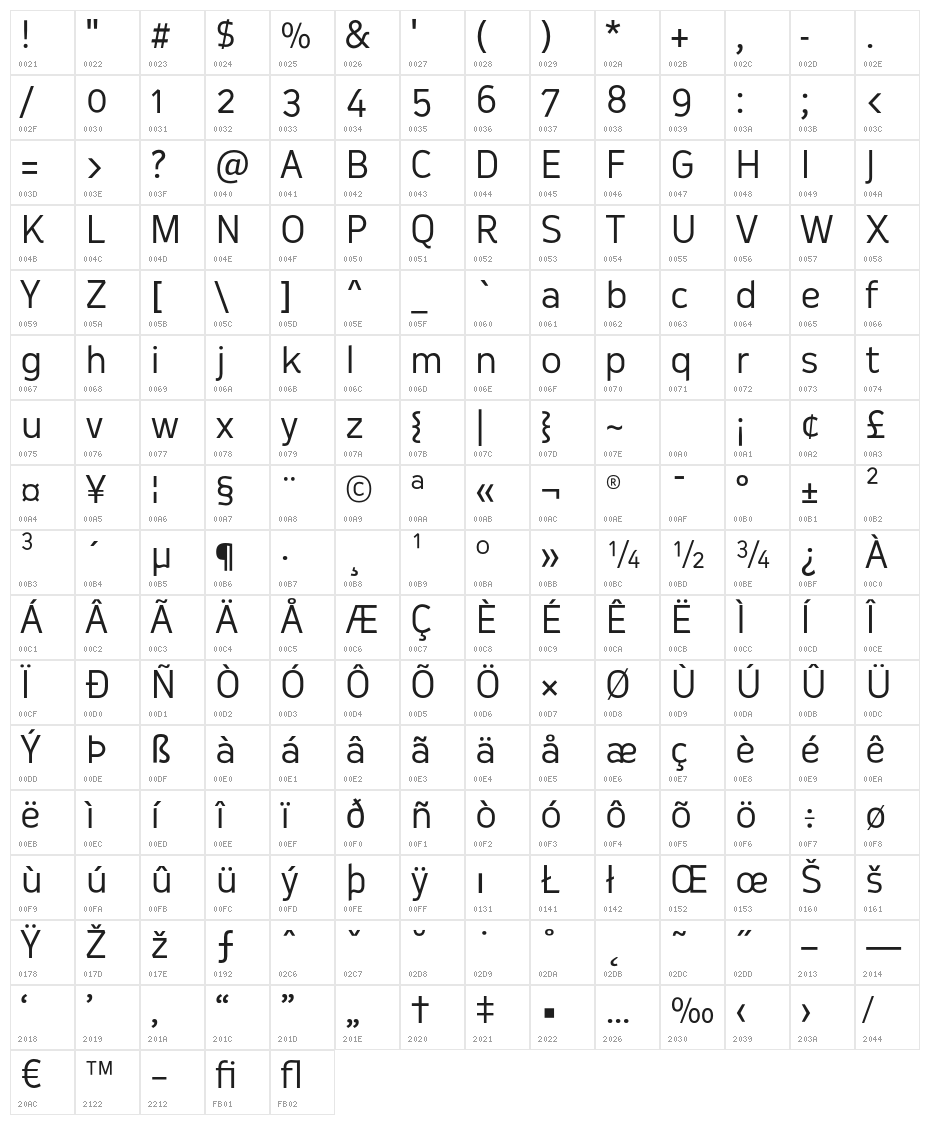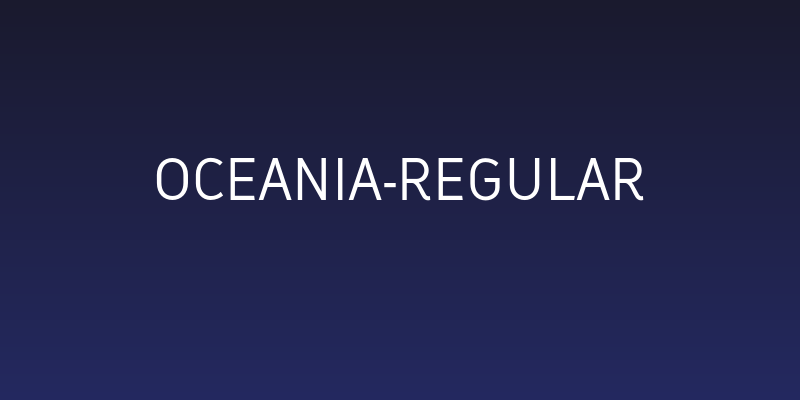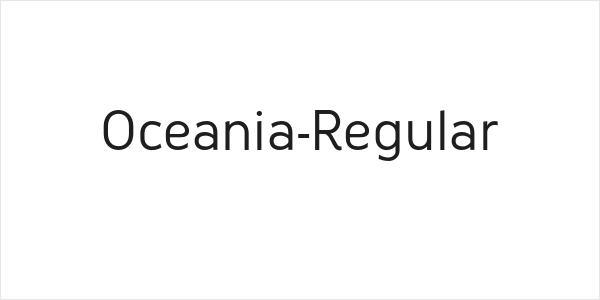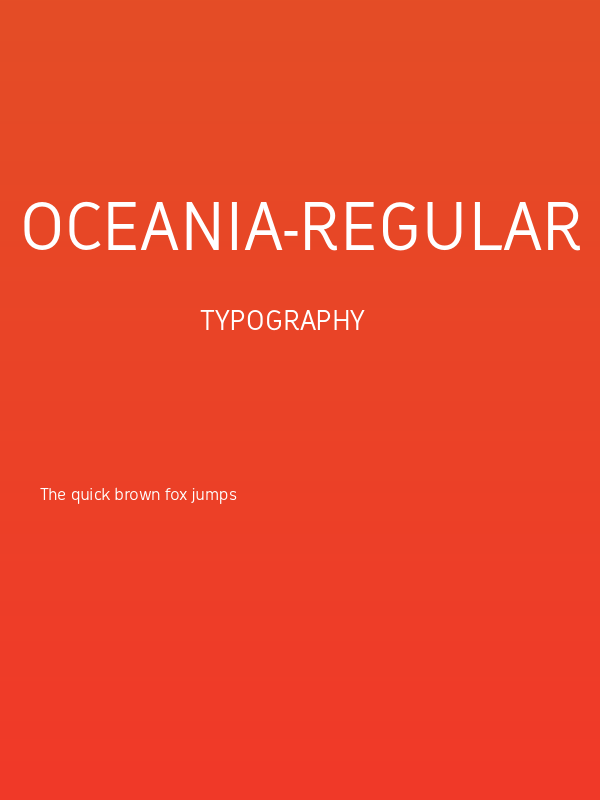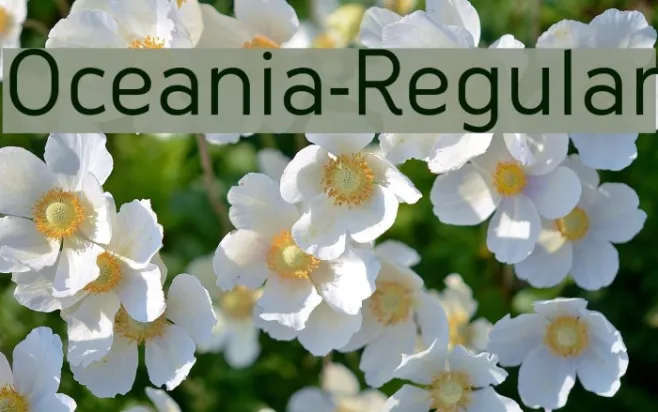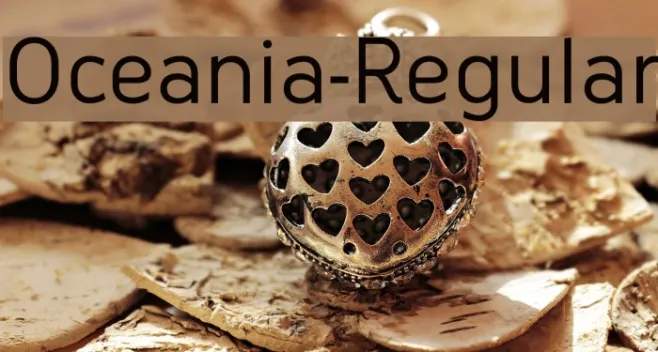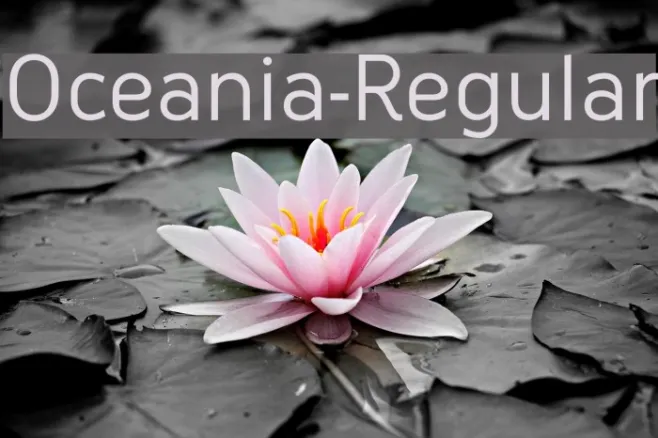
Oceania-Regular Font
Oceania-Regular Description
This font features a clean and modern sans-serif design, characterized by its simplicity and clarity. The letters are evenly spaced, with a consistent stroke width that provides a balanced and harmonious appearance. The uppercase and lowercase letters are well-proportioned, making it highly legible across various sizes. The numerals and special characters maintain the same clean aesthetic, ensuring uniformity throughout. Its straightforward design makes it versatile for a wide range of applications, from digital interfaces to print media.